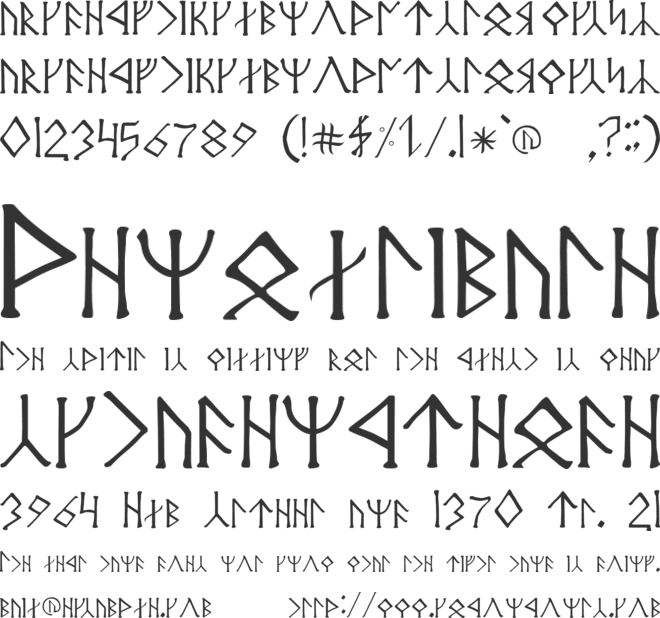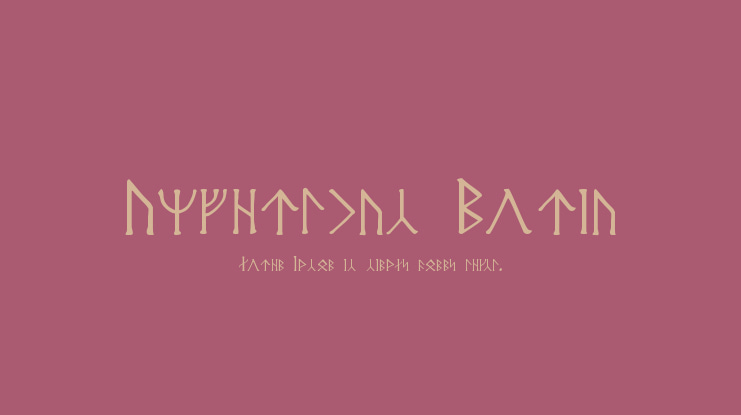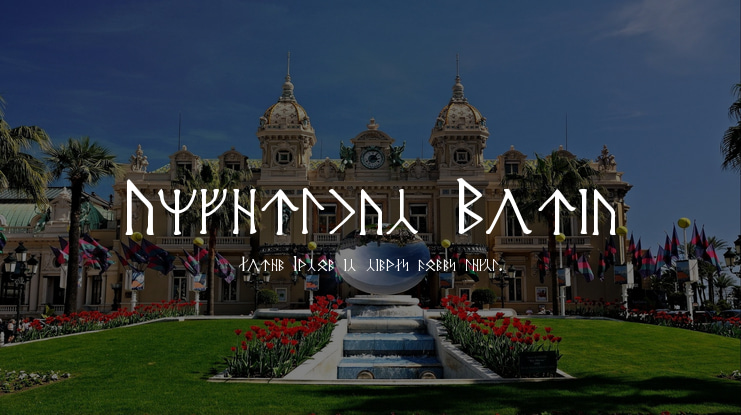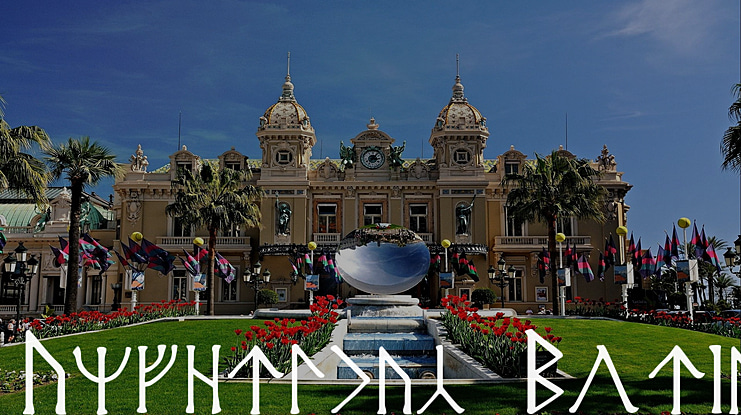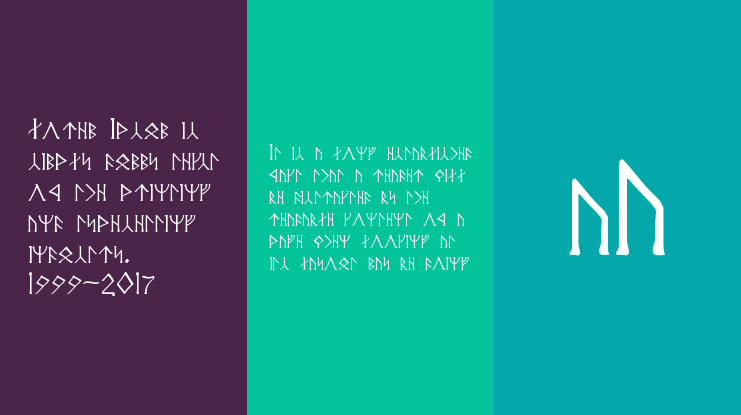
Angerthas Moria Font
This TrueType-font was created in 1996-97 by Morten Bek.
About the supported characters:
The English alphabet is fully supported plus th, dh and sh (which I put where I found it most fitting: under thorn, eth and cedilla respectively). You can find them with the Character Map if you're lost.
The dwarven & (ampersand) is also supported. Finally, I started making a bunch of characters including all the numbers and ,.;:-_!"#$%/()=?+`^~*<>\@'
Many of these aren't (of course) very Tolkienish, and most of them won't be
useful for you at all.
Created by Morten Bek anno 1997